DizajnDesign
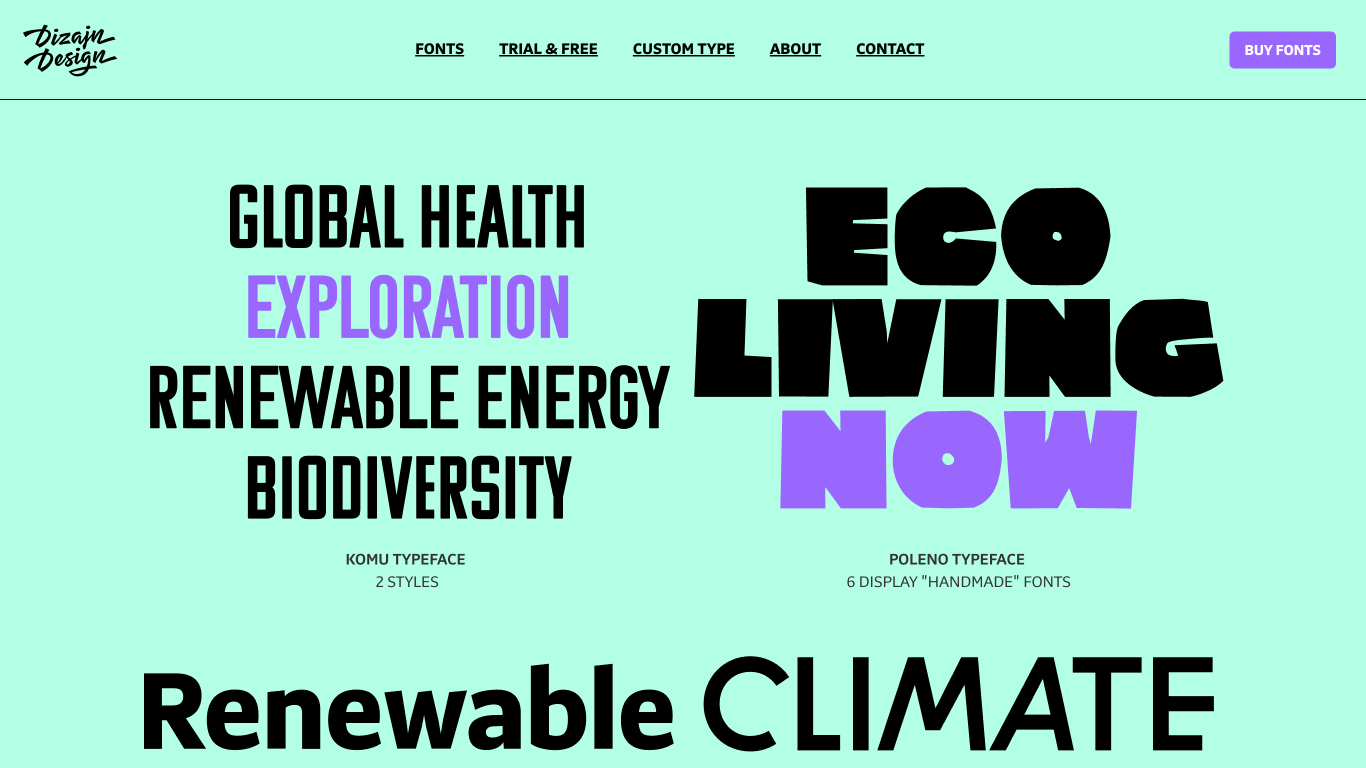
Slovakia
2007
DizajnDesign is an independent type foundry and graphic design studio based in Bratislava, Slovakia, founded in 2007 by Ján Filípek. The studio specializes in creating high-quality typefaces with a contemporary attitude, offering useful yet enjoyable options for graphic designers worldwide.Notable type families include 'KOMU,' 'Poleno,' and 'Preto,' which explore various type design spaces, ranging from text to display typefaces, and from handmade scripts to serious readable fonts. DizajnDesign also provides custom type services, lettering, logotype creation, and intensive calligraphy workshops.